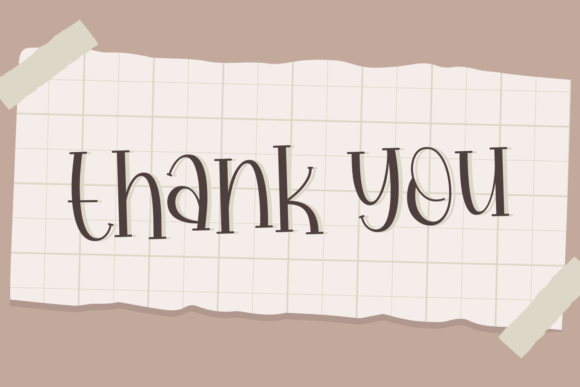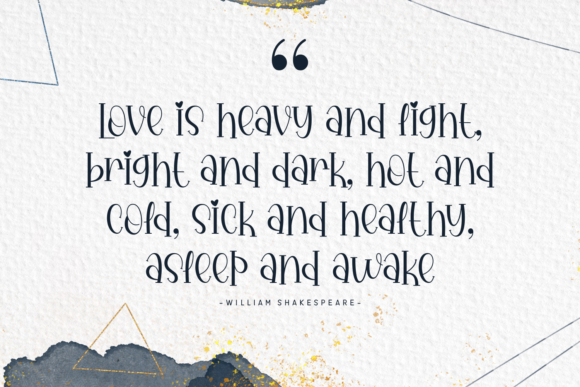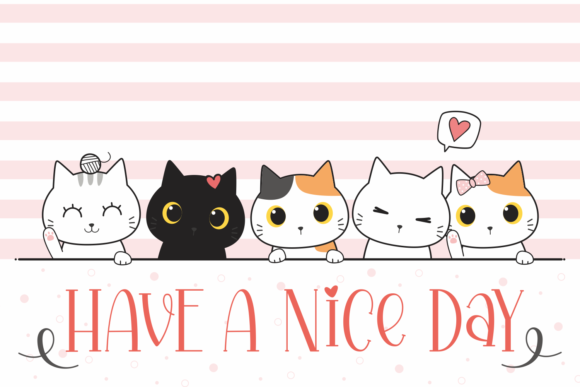
Introduction to Shasy Font
Have you ever stared at a blank canvas, trying to bring your creative vision to life, only to be held back by the perfect font? It’s that moment of hesitation, the one that can make or break the entire design. For many designers, finding the right font can be a daunting task, especially when working on informal or children-related projects. But what if I told you that there’s a font that can make your design shine?
| 📌 Product Name | Shasy Font |
| 👤 Author | Ari (7NTypes) |
Meet Shasy Font, the perfect serif font for designers who want to add a touch of warmth and personality to their projects. With its balanced and varied characters, Shasy Font is the ultimate design resource for anyone looking to create high-quality, engaging content. And the best part? It’s PUA encoded, making it easy to access all of the glyphs and swashes you need to take your design to the next level.
Key Features of Shasy Font
Honest Review: Shasy Font
I recently stumbled upon the Shasy Font, and I must say it’s been a game-changer for my creative projects. The font is incredibly versatile and can be used for a wide range of design resources, from logos to typography.
Here are some things that work well with the Shasy Font:
- ✨ High-quality design: The font has a sleek and modern design that looks professional and high-end.
- ⚠️ Limited character set: The font only includes a limited character set, which may not be suitable for complex designs.
- ⚠️ Not suitable for small text: The font’s design may not be ideal for small text sizes, as it can become difficult to read.
Overall, I’m impressed with the Shasy Font and would highly recommend it to designers looking for a high-quality, free font for their creative projects.
Shasy Font
Tips for Getting the Most Out of Shasy Font
Experiment with different font sizes, colors, and styles to create unique designs. Use Shasy Font in combination with other design elements to add depth and interest to your project.
Shasy Font is ideal for creative projects such as brochures, flyers, business cards, and social media graphics. Its versatility and high quality make it a perfect choice for any design project.